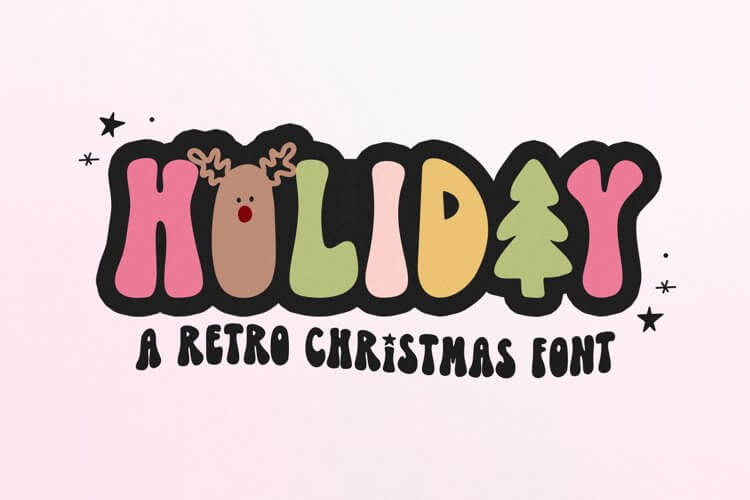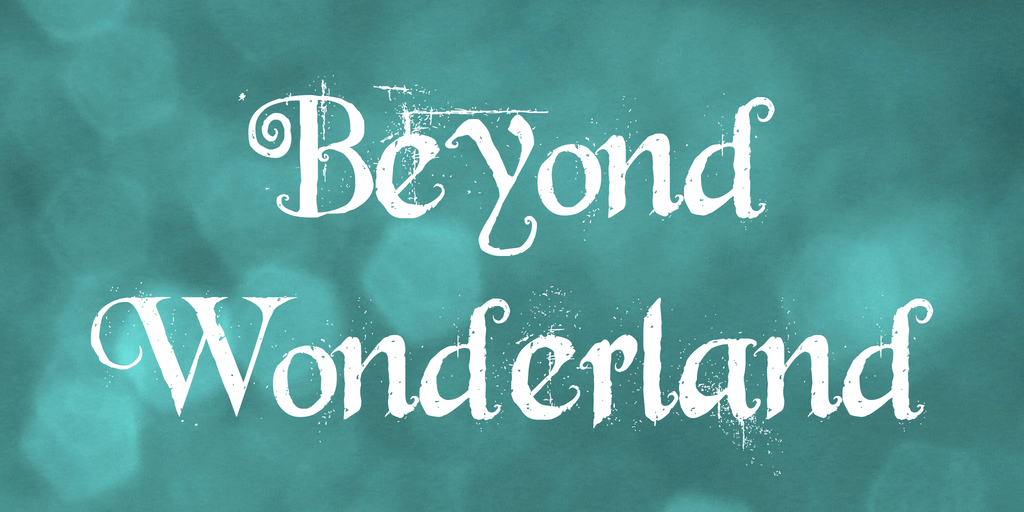
17 Beautiful Christmas Fonts
The spooky season is over, and while many will mourn, there are other fun holidays right around the corner. Whether it’s Mariah Carey’s voice haunting every shop or the smell of yummy gingerbread, the tell-tell signs are everywhere. Maybe you want to get into the holiday spirit? Here are 17 lovely Christmas fonts to wow even the grinchiest of Scrooges!
During the holidays, it can be fun to decorate your business’ online space. But changing your color palette to traditional red and green doesn’t have to be the only way. There are many ways to spruce up your design, but still retain your brand identity and uniqueness.
A font can be an easy way to do that. If you’re having a Christmas sale, it’s guaranteed to catch the customer’s attention. There are great fonts out there, and Christmassy fonts can certainly be enchanting to see.
What is a good Christmas font?
Some people like to go all out, some people like to keep things simple and understated. A good Christmas font is a matter of preference. But having a gaudy font doesn’t mean your design has to be tacky.
A holiday font tends to steal the show, so the accompanying visuals should be as subdued as possible. If you opt for a decorative font, consider more muted colors and minimal imagery.
The opposite is also true. If you choose a font that’s more traditional and timeless, you have the space to experiment with other visuals more.
Christmas is all about traditions and there are wonderful fonts that evoke the times past. However, there are also ones that are all about festive fun.
What is a good Christmas font depends entirely on what you want to accomplish with the design. Whether you want just a symbolic acknowledgment of the holiday season, or you want to go all out, you will probably find what you’re looking for among these fonts.
What are some Christmas fonts to use this season?
There are many amazing Christmas fonts, so to list them all would be almost impossible. Here are our picks for some of the best fun Christmas fonts.
Gingerbread (free)
Free Christmas fonts can be difficult to come by. However, this is a beautiful and elegant Christmas font that’s guaranteed to make your website or app both festive and sophisticated. It has a timeless look, at least during the holiday season.
With its swirly serifs, it radiates joy and comfort. You can’t see it experiencing holiday cheer. It can be a great addition to almost any kind of design.
It can be a fun choice, especially if you want to bring some levity into your design. It combines well with sans-serifs, which can be especially useful for web design. However, it doesn’t have to be limited to that. It’s a great holiday font for greeting cards and gift wrapping as well.
If your design is more vintage-inspired, this can be the perfect font for you. It’s a little out there, but after all, it’s the holiday season. When is a good time to use wacky fonts if not then?
It has something of a Harry Potter vibe to it, and it can be perfect if you’re looking to add just a little magic to your designs.
It’s the perfect combination of simplicity and pure Christmas wonder. It can work wonderfully with other sans-serifs, to give your design just a touch of pizzaz. It’s free for personal use, so you can download it until you decide whether it’s the right one for you. To purchase the commercial license, you need to contact the designer.
It’s a serif font that has elements of both typeface and script fonts which make it incredibly visually interesting. With its subtle swirls and curls, it adds the perfect touch of levity to its elegance.
Christmas and Santona ($15)
This is a wonderful script font that can be perfect for all kinds of projects. It’s whimsical, yet can still be quite elegant as the picture below shows. It’s swirly but still fairly easy to read. However, as with most decorative fonts, it should be used sparingly and with intention.
It shows that Christmas lettering doesn’t have to be all fir trees, lights, and presents. It embraces the holiday spirit, but can work year-round with the proper font combination.
Candy Cane (free)
Candy canes and candy stripes are one of the most recognizable symbols of the holiday season. The pattern is so simple, yet so effective. The stripes in the letters are dynamic and can immediately liven up a design.
This is a sans-serif font, which is great because it helps keep the text legible. The rounded letters are perfect in conveying the shape of a candy cane and all its Christmassy whimsy. It can be a great choice for a modern website looking to embrace the holiday cheer.
PW Christmas font (free for personal use)
This is a bold choice of font. It’s a sans-serif script font that just radiates joy. The little doodles in and around the letters make it charming and incredibly unique. The little ribbons on the letters make every character a pretty gift box.